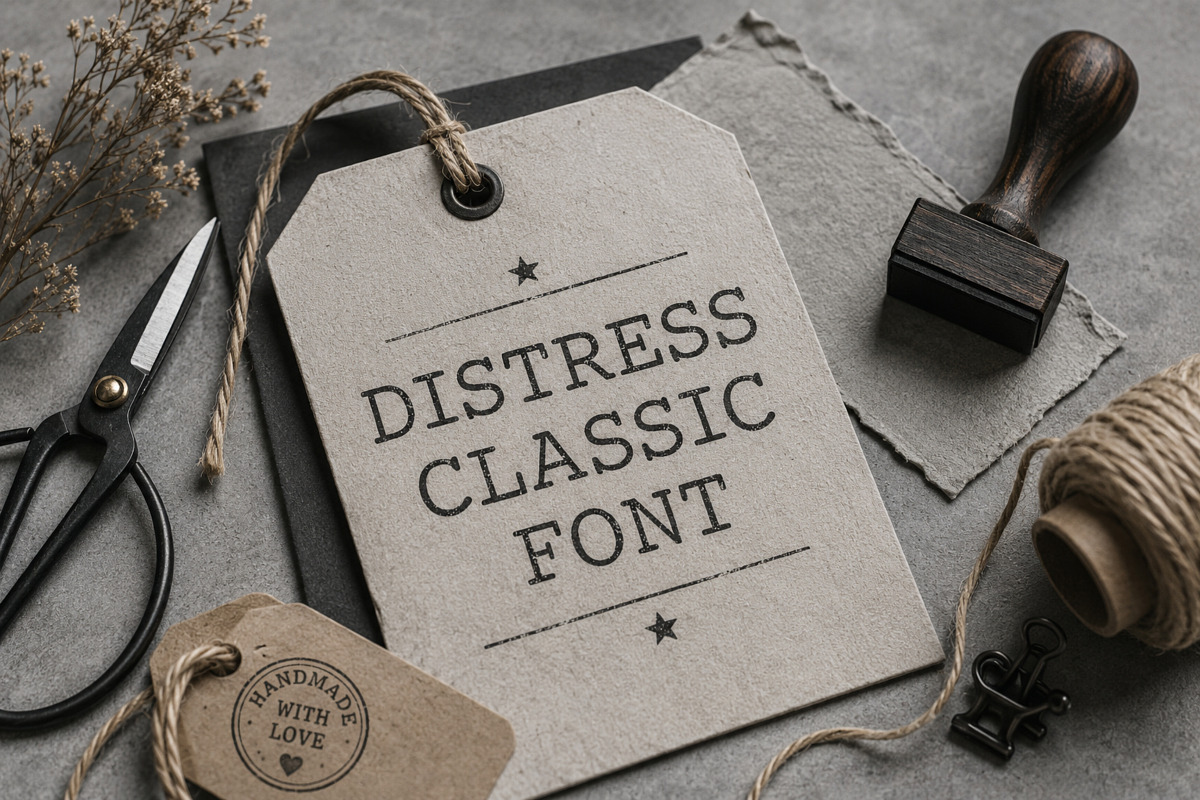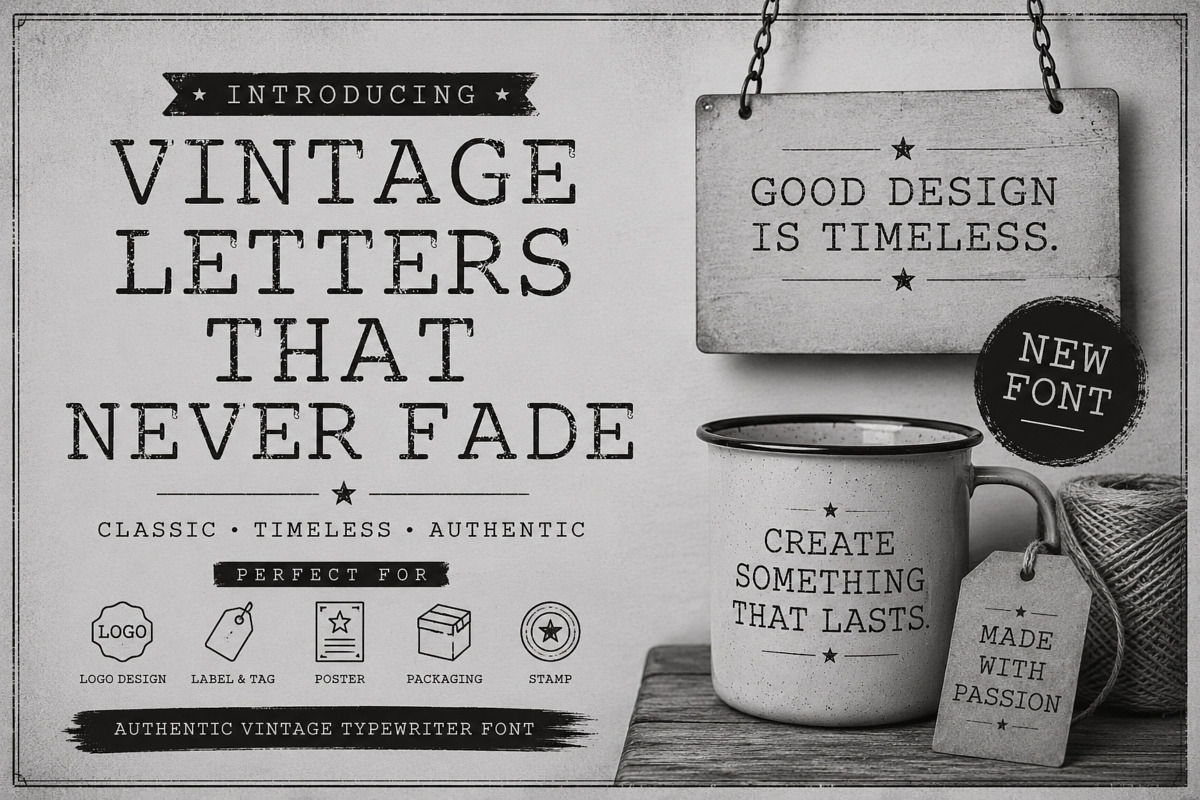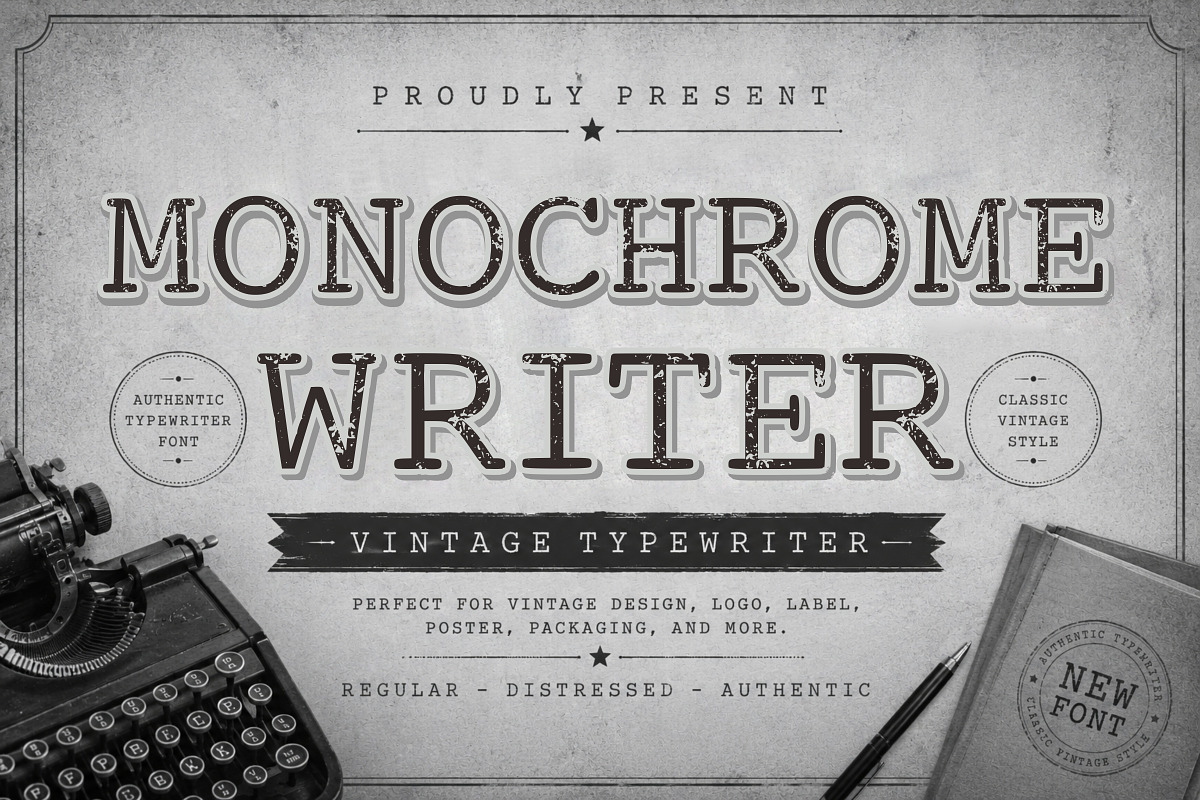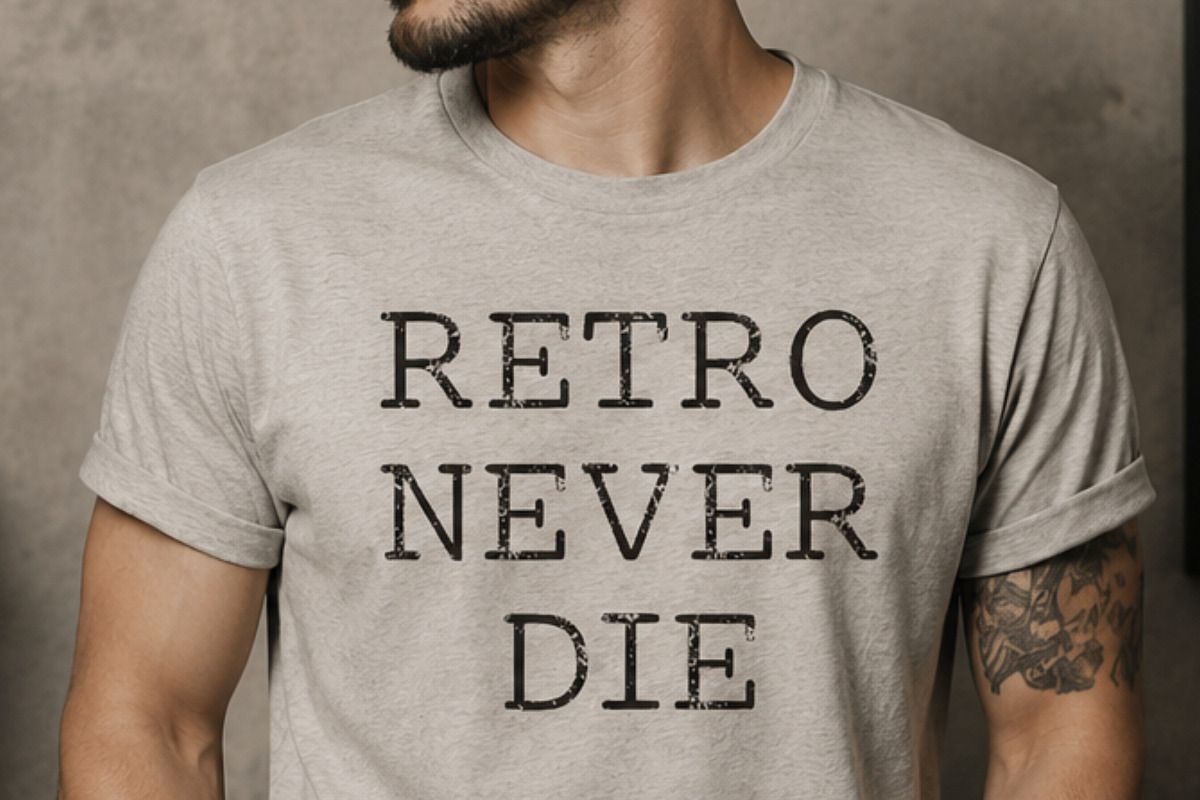
Monochrome Writer
Bring timeless character to your designs with this Monochrome Distressed Writer Font, inspired by classic typewriter and vintage print aesthetics. Featuring rough edges and subtle grunge texture, this font adds an authentic handmade feel perfect for retro-themed projects.
Ideal for t-shirt designs, posters, branding, packaging, labels, and craft projects, this font delivers bold readability with a nostalgic touch. Its imperfect strokes create a natural worn look, making every word feel unique and expressive.
Whether you’re creating vintage logos, editorial layouts, or DIY craft designs, this font ensures your work stands out with a classic monochrome charm.
Perfect For: T-shirt & merchandise design Craft & handmade products Vintage posters & flyers Branding & logo design Packaging & labels Social media graphics